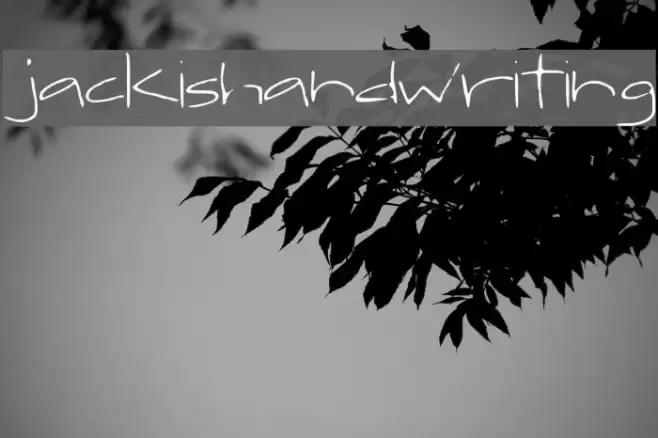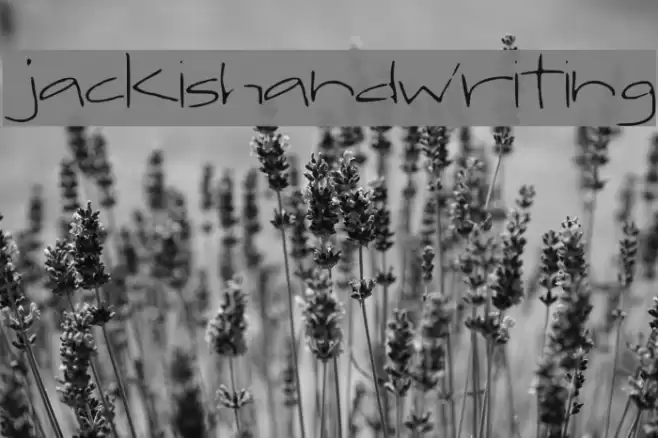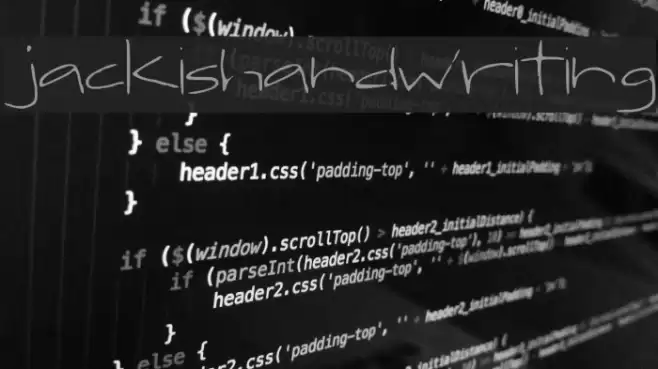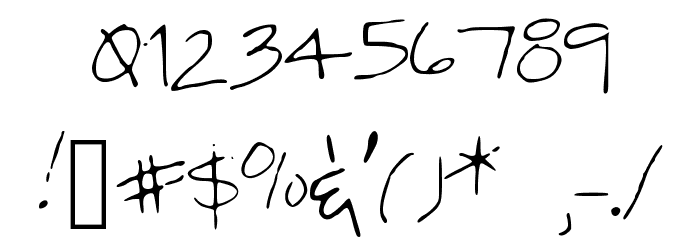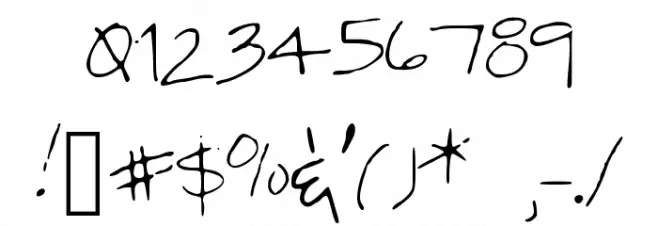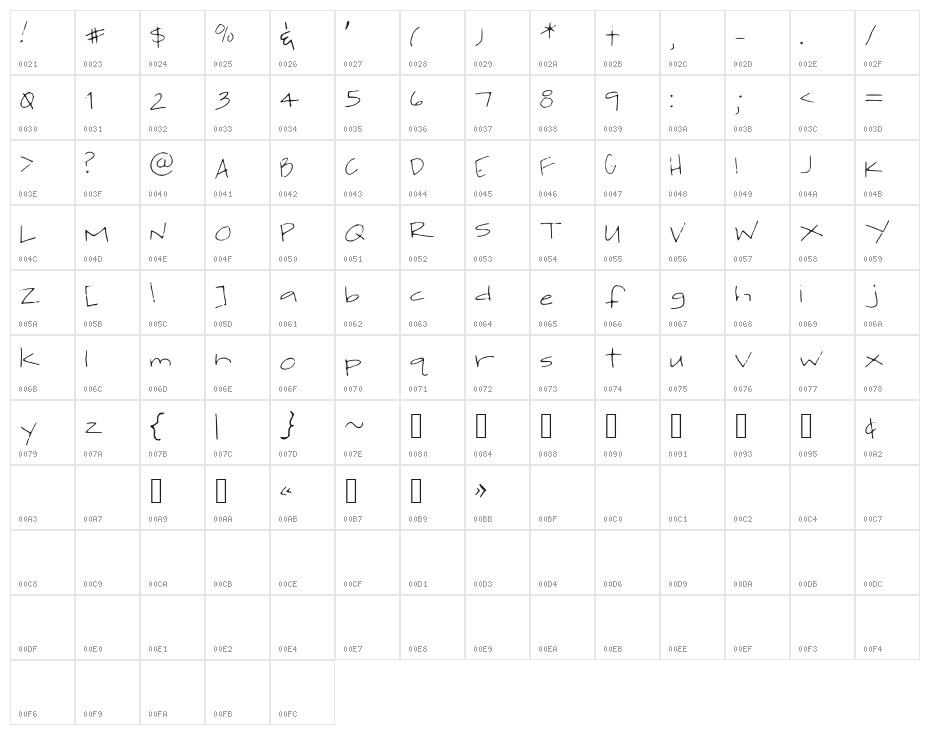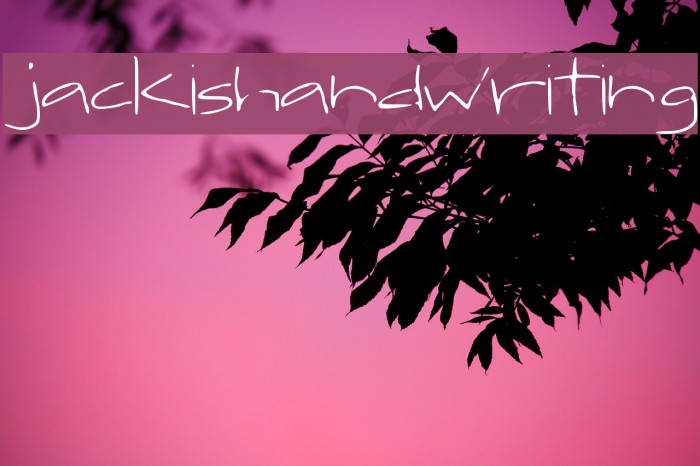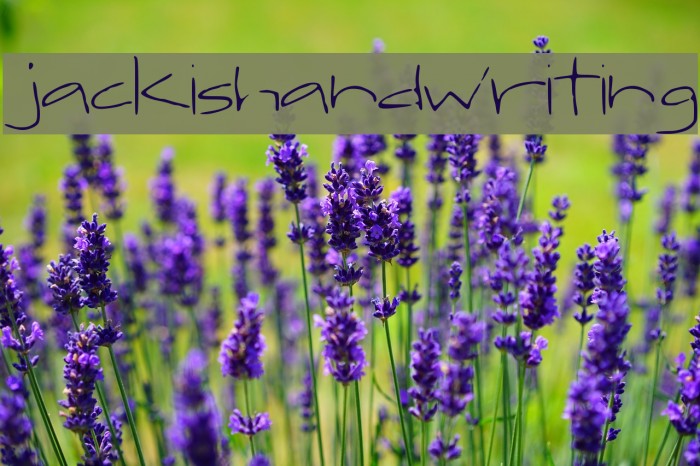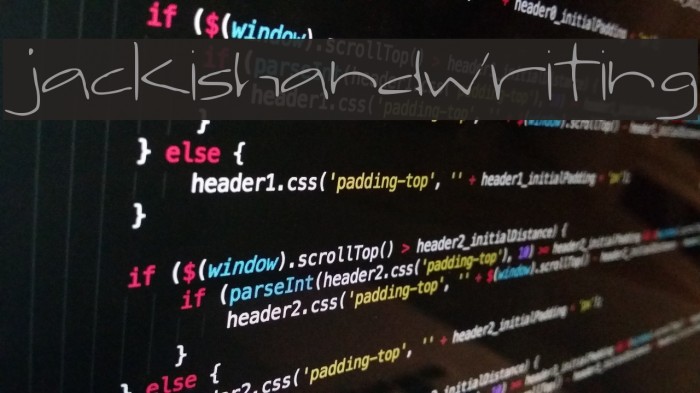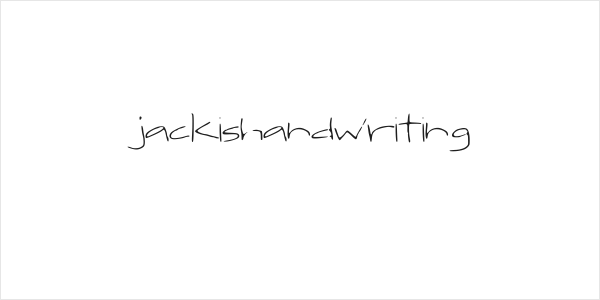
jackishandwriting Font
jackishandwriting Description
This font exudes a casual, handwritten style, characterized by its loose and informal strokes. The letters are unevenly spaced, giving it an authentic, personal touch reminiscent of quick, spontaneous writing. The uppercase and lowercase letters maintain a consistent flow, while the numbers and special characters integrate seamlessly with the overall style. The strokes vary in thickness, adding a dynamic and lively feel to the text. This font is perfect for projects that require a personal, approachable, and friendly vibe.
A casual, handwritten font with dynamic strokes and a personal touch from Handwritten fonts.
- Proposed Projects: Ideal for personal notes, creative projects, casual invitations, and social media graphics.
- Character Spacing: Loose
- Overall Style: Casual
- Use Case: Headlines, Informal text, Creative projects